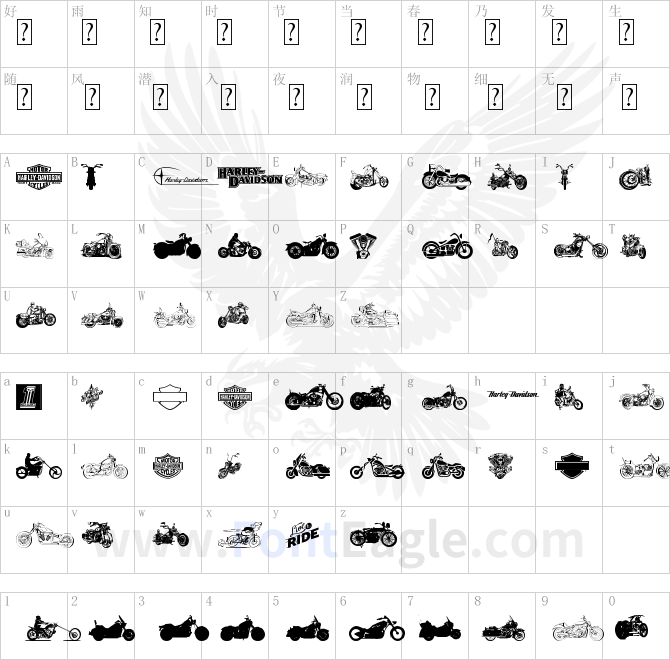
- Font name:Harley Davidson
- Font Subfamily ID:Harley Davidson:Version 1.00
- Font Full Name:Harley Davidson
- Font Version:Version 1.00 August 22, 2016, initial release
- Postscript:HarleyDavidson
- Font Copyright:Typeface ©WOODCUTTER MANERO MMXVI All Rights Reserved